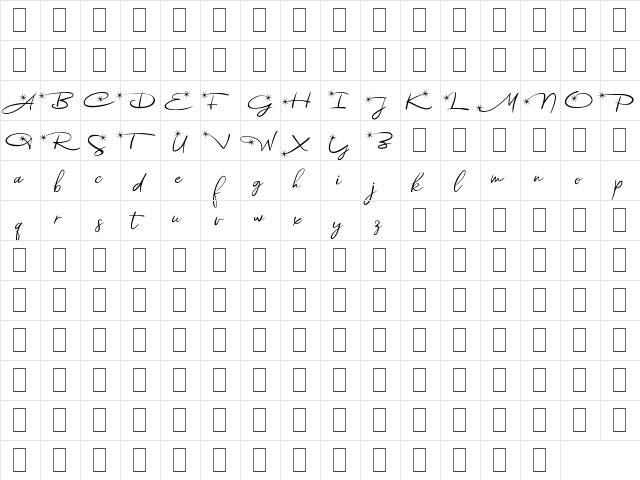
Astoria Demo Regular
Design Context for Astoria Demo Typeface
Astoria Demo is a composed and adaptable typeface that performs quietly and consistently across a wide range of design contexts.